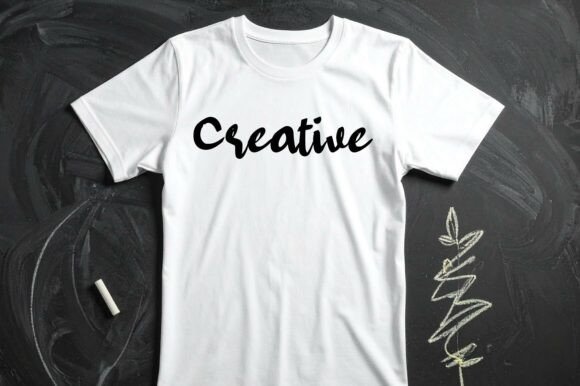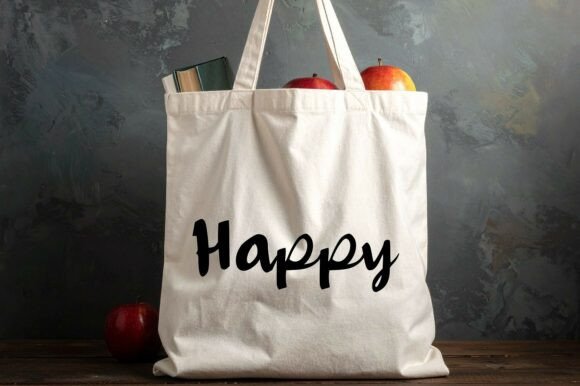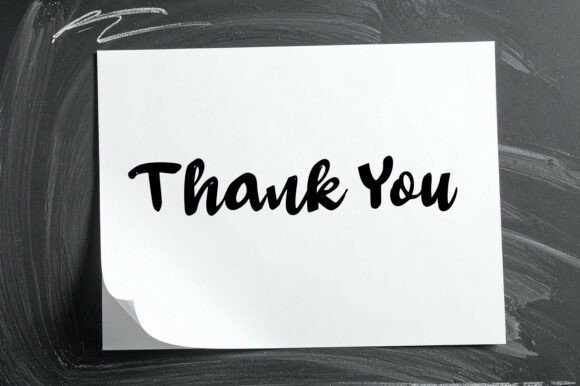
Introduction to Cermati Font
Introducing the epitome of artistic expression: the Cermati font.
Known for its genuine charisma and pulsating vigor, this handwritten script font combines the finesse of typography and the warmth of brush strokes, bringing your text to life with its organic spontaneity Cermati feels like a live wire of creativity, its playful whimsy mirroring the intriguing unpredictability of human touch, making your text invitingly intimate.